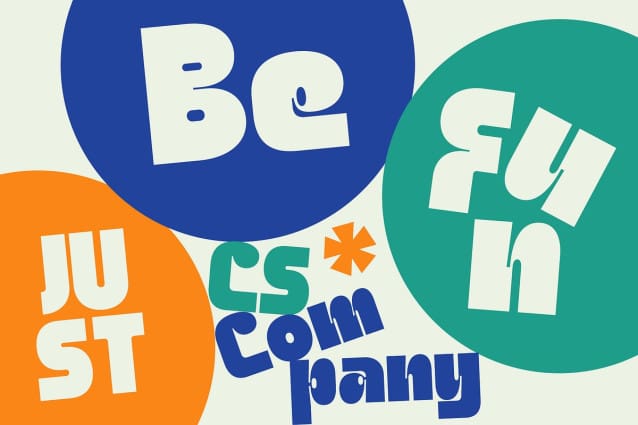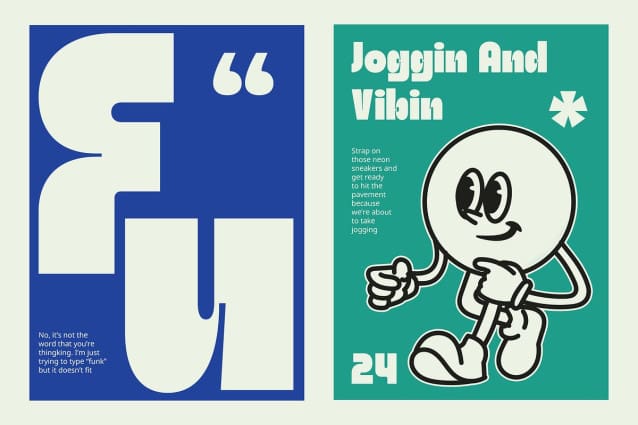
CS Company Font
CS Company Font is a bold sans-serif font that combines a funky and cute aesthetic, perfect for creating playful and vibrant designs. Its strong lines and rounded shapes offer a delightful, youthful appeal, making it ideal for projects that need a cheerful and energetic vibe.
Perfect for Cheerful Branding Ideal for branding projects that aim to stand out, CS Company adds a lively touch with its unique blend of strength and charm. The font’s boldness and rounded shapes make it perfect for creating logos, posters, and packaging that exude a cheerful and energetic presence.
Adds a Youthful Appeal The bold and rounded design elements of CS Company provide a youthful appeal, making it suitable for a wide range of creative applications. Whether for digital media, branding, or packaging, this font ensures your designs capture attention with a fun and vibrant style.
Versatile for Various Creative Projects CS Company is versatile and can be used for logos, posters, packaging, and more. Its funky and cute aesthetic combined with bold sans-serif strength brings a unique and lively touch to any creative work, ensuring your designs stand out with a cheerful and captivating look.